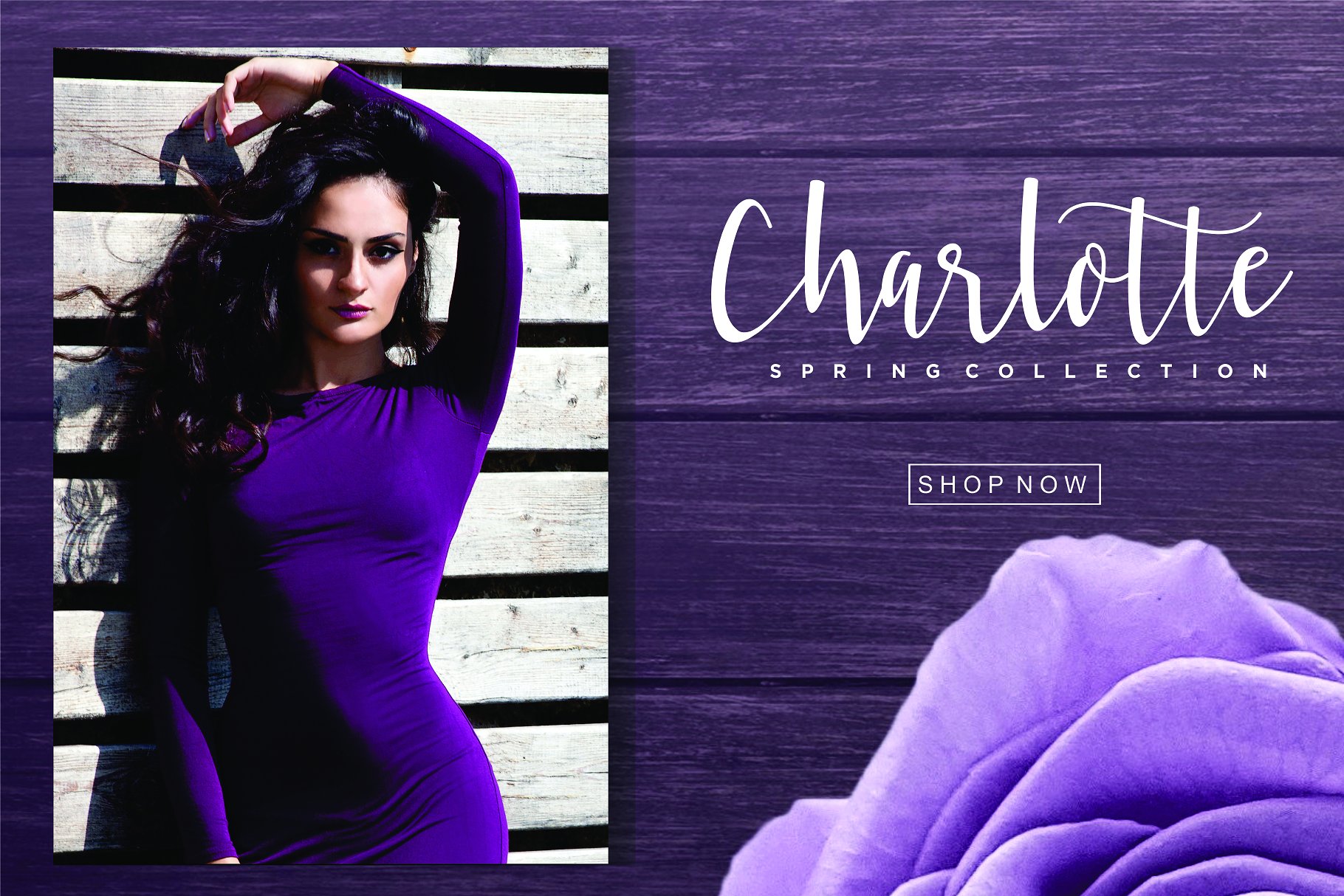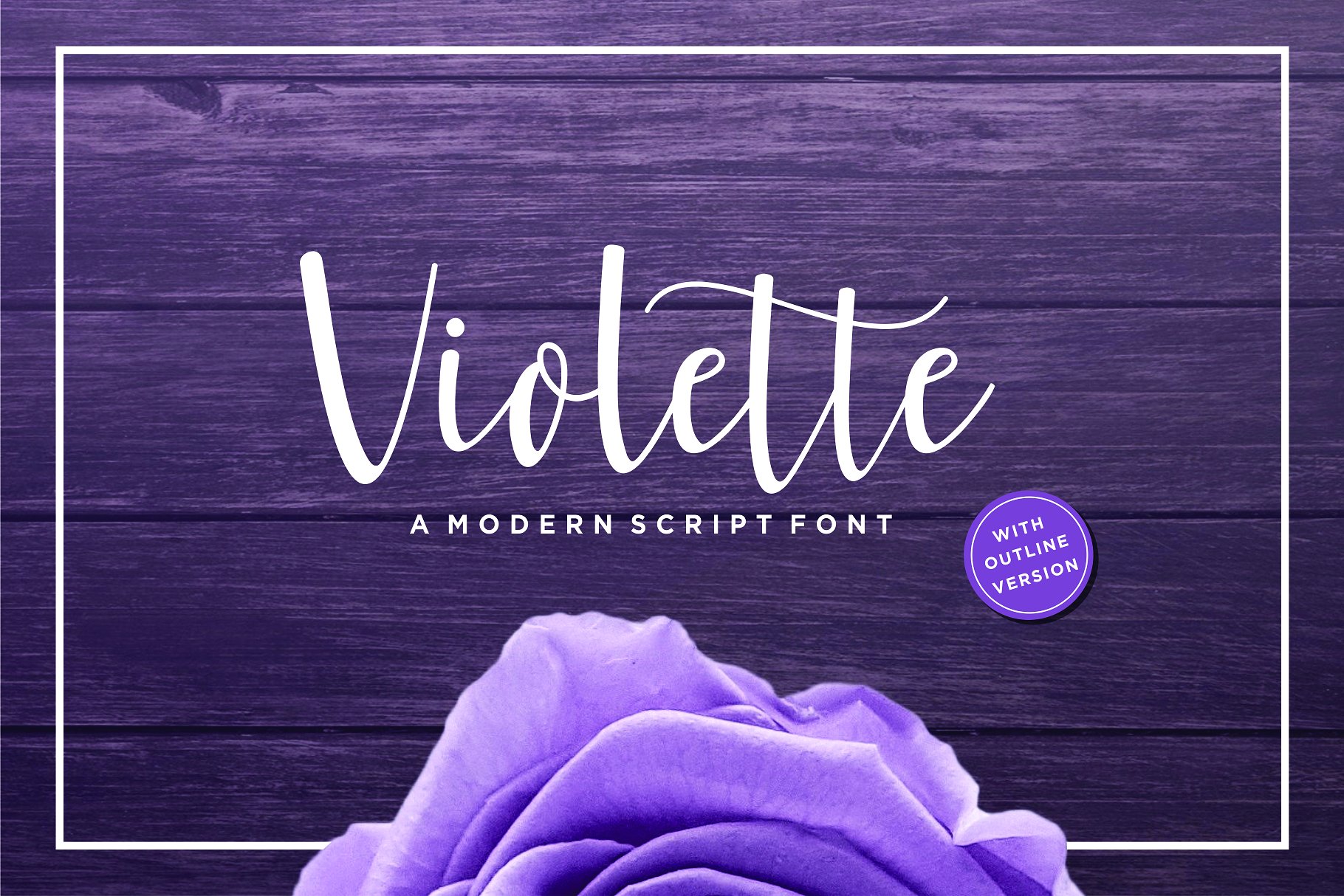
Violette Script Font
Violette is a beautiful modern script font that comes with both a clean and outlined version that gives this font an elegant and stylish vibe. This font is suitable for displays and projects that need a calligraphic feel.